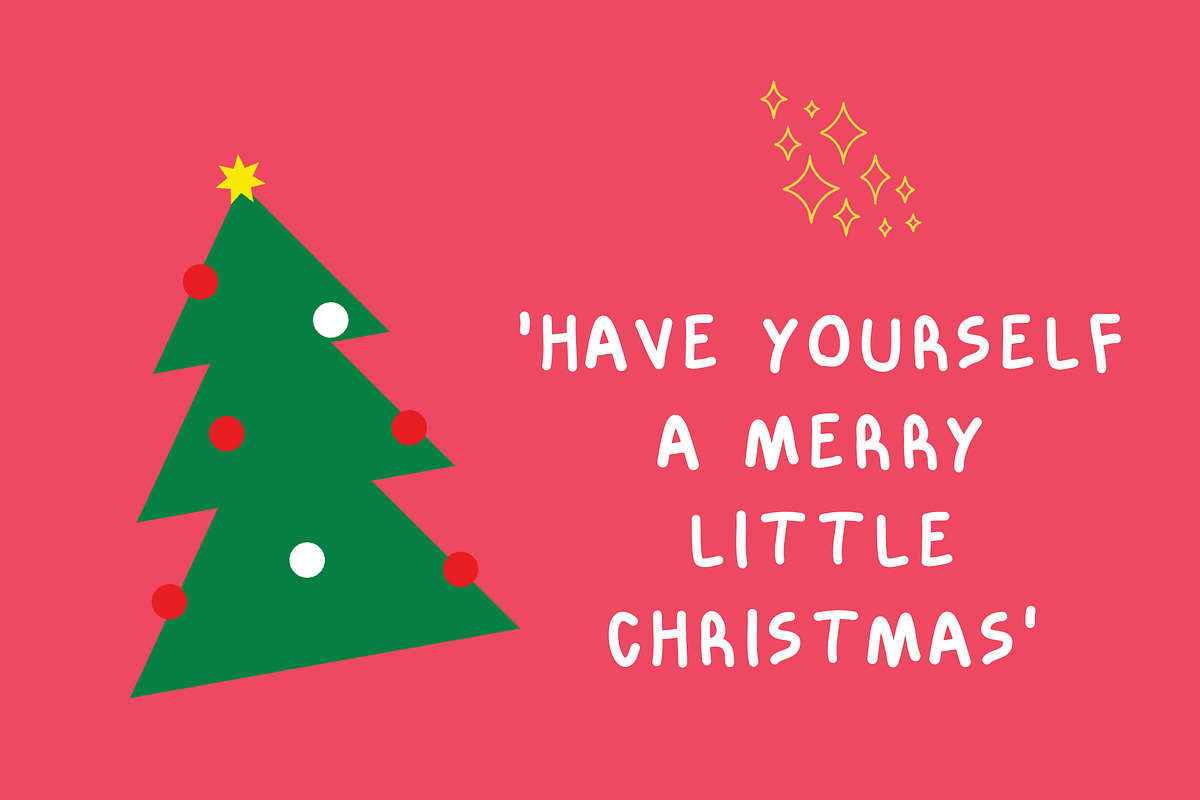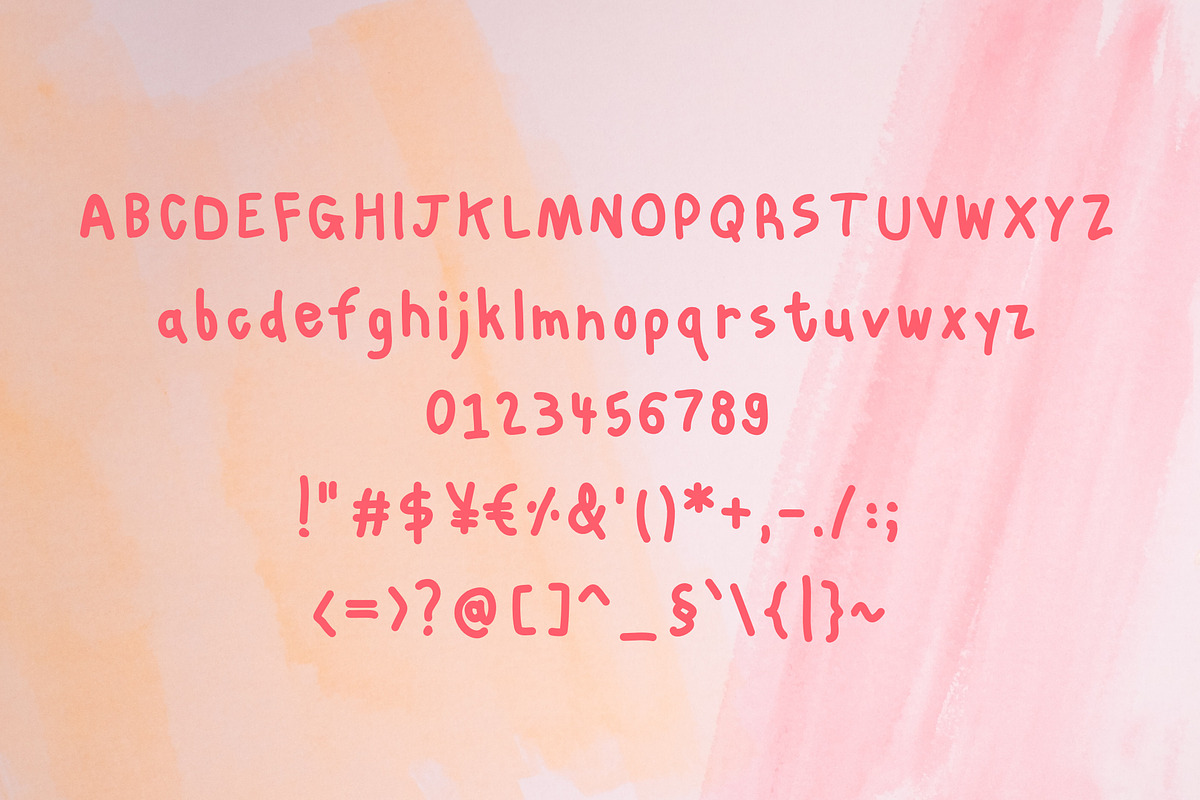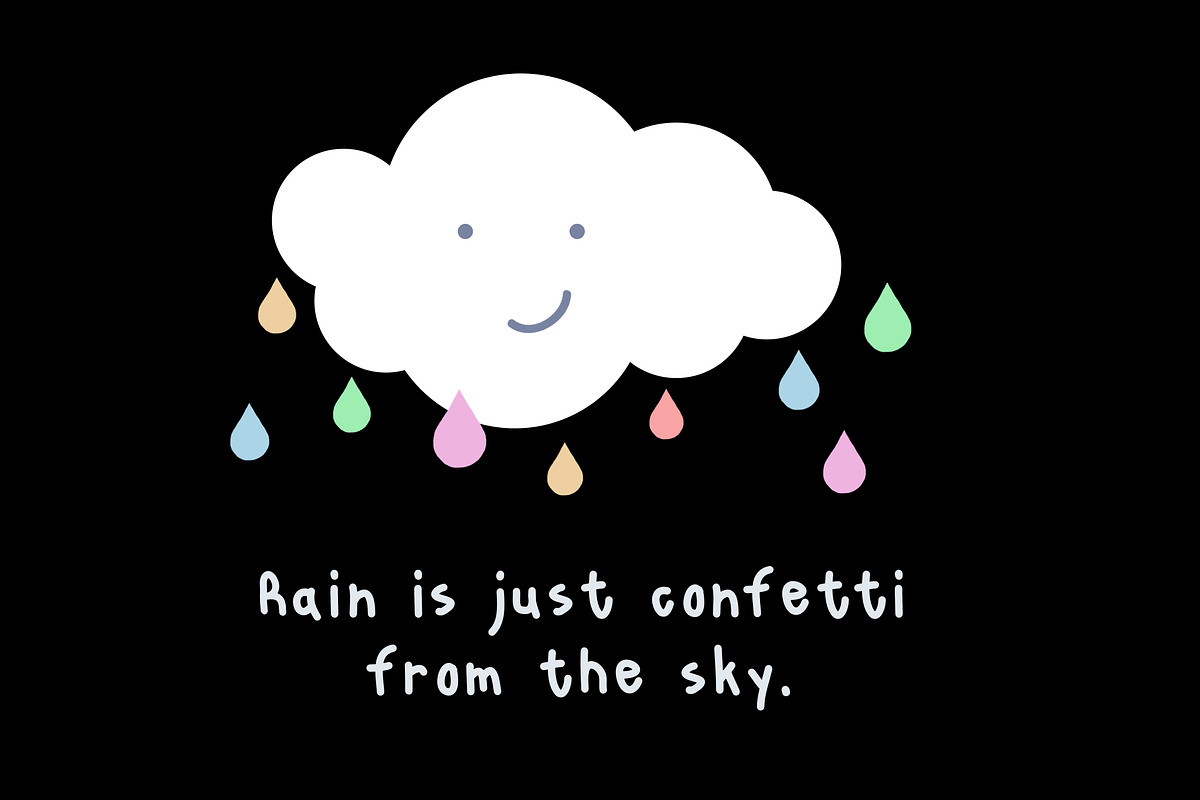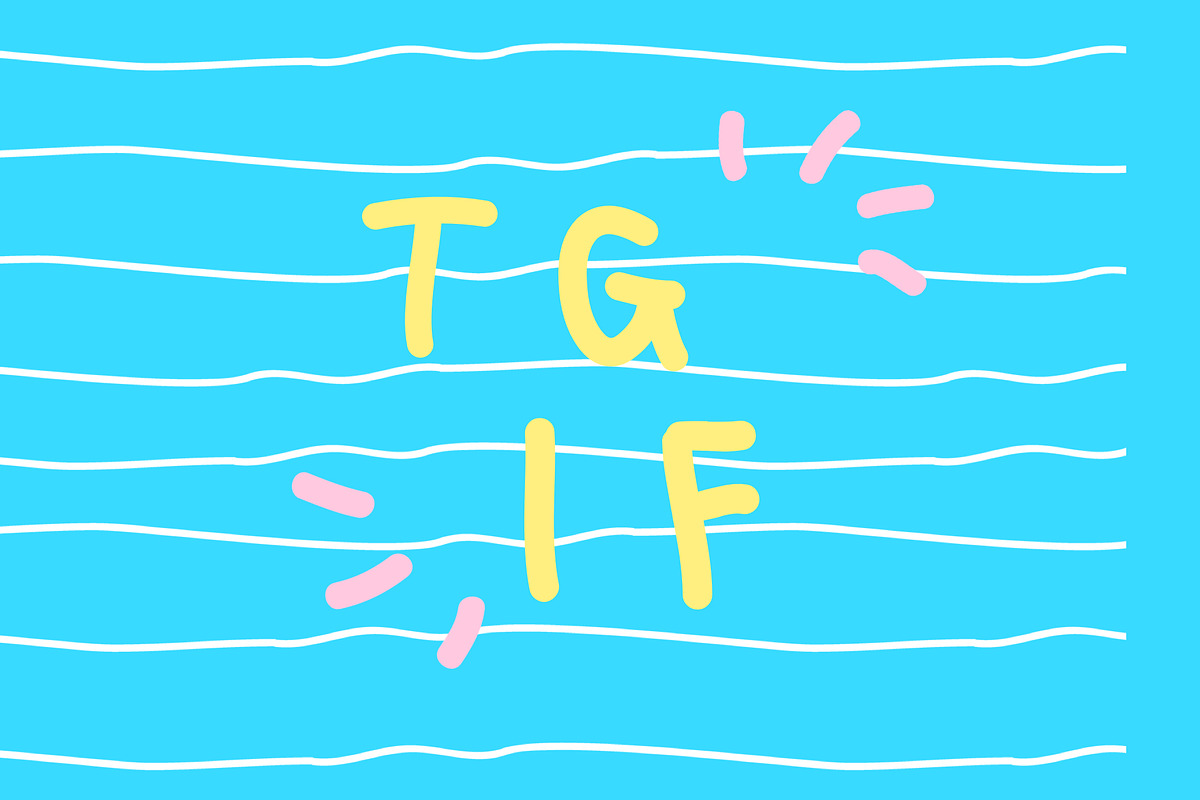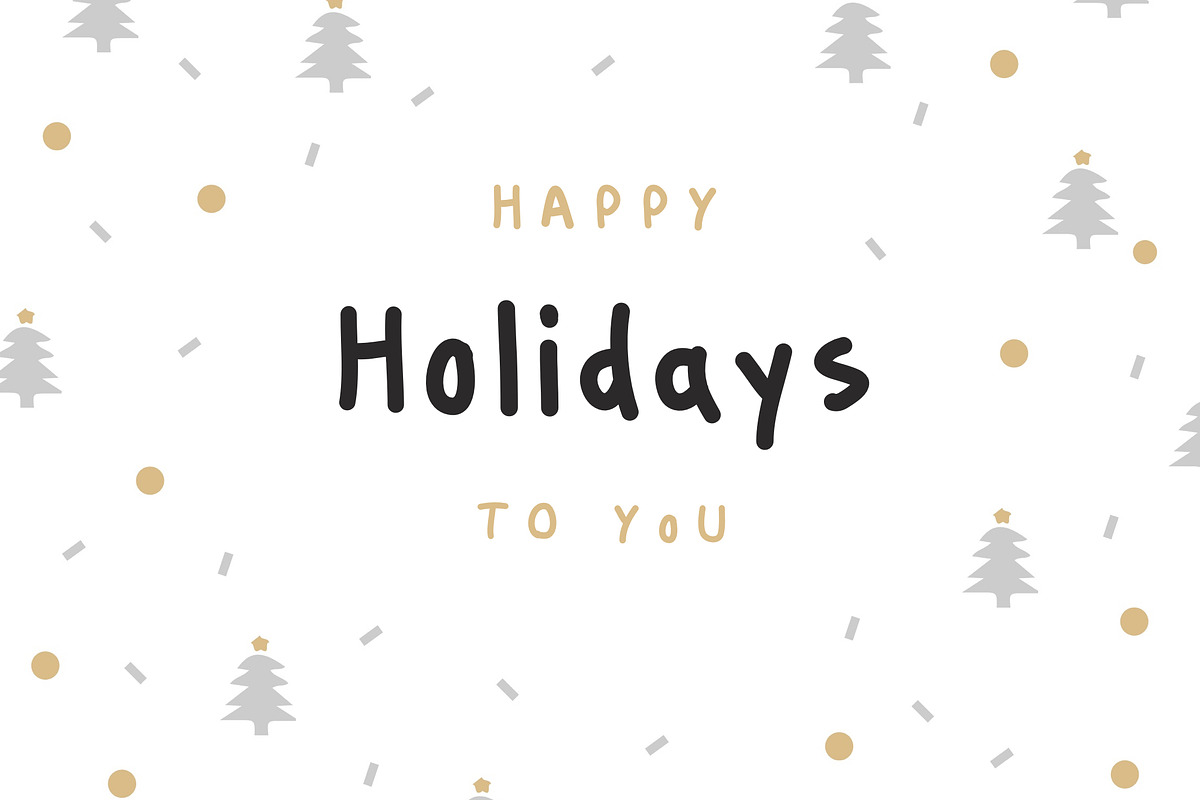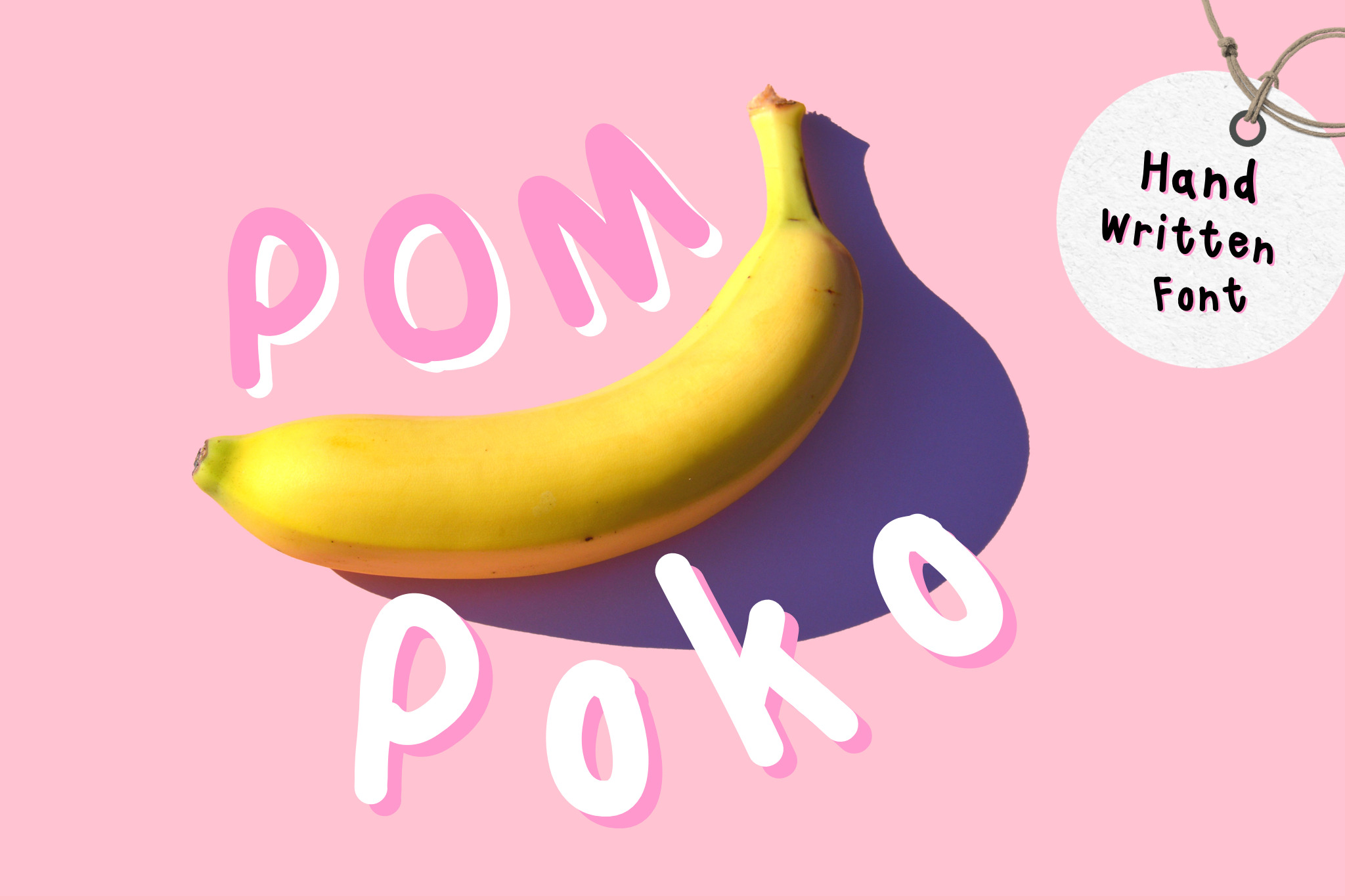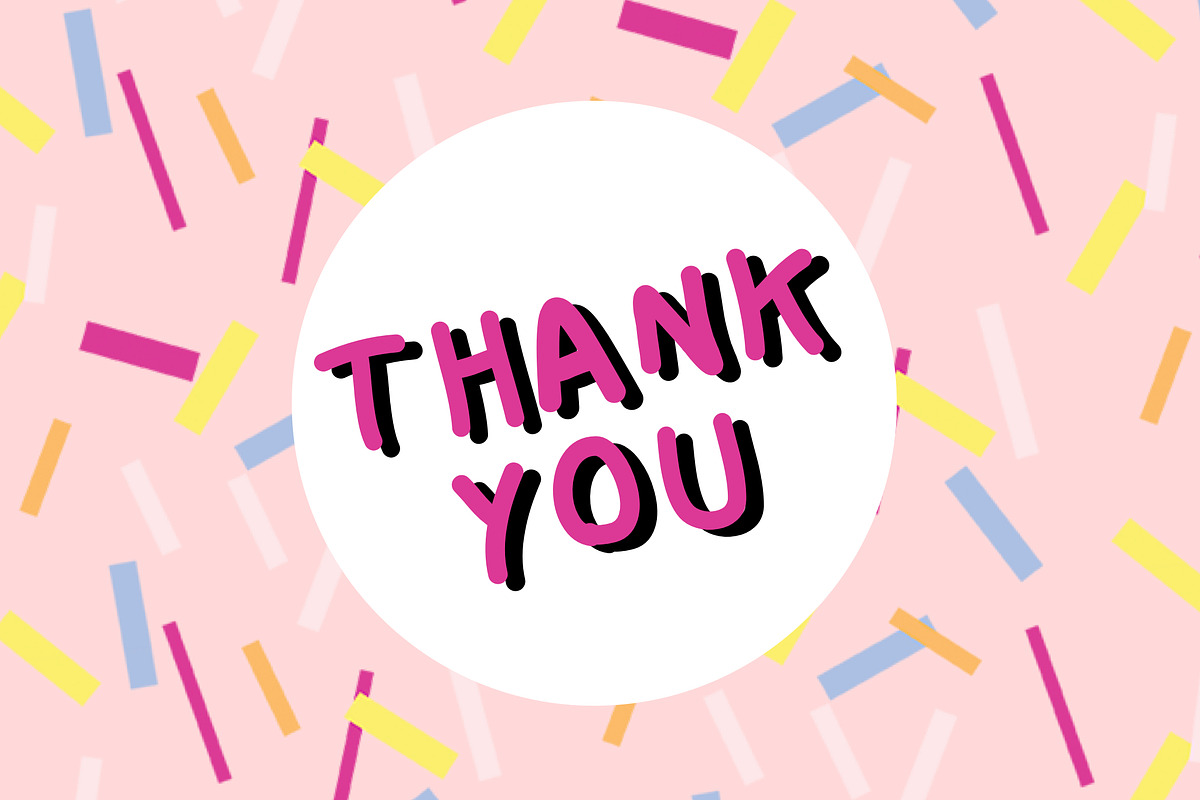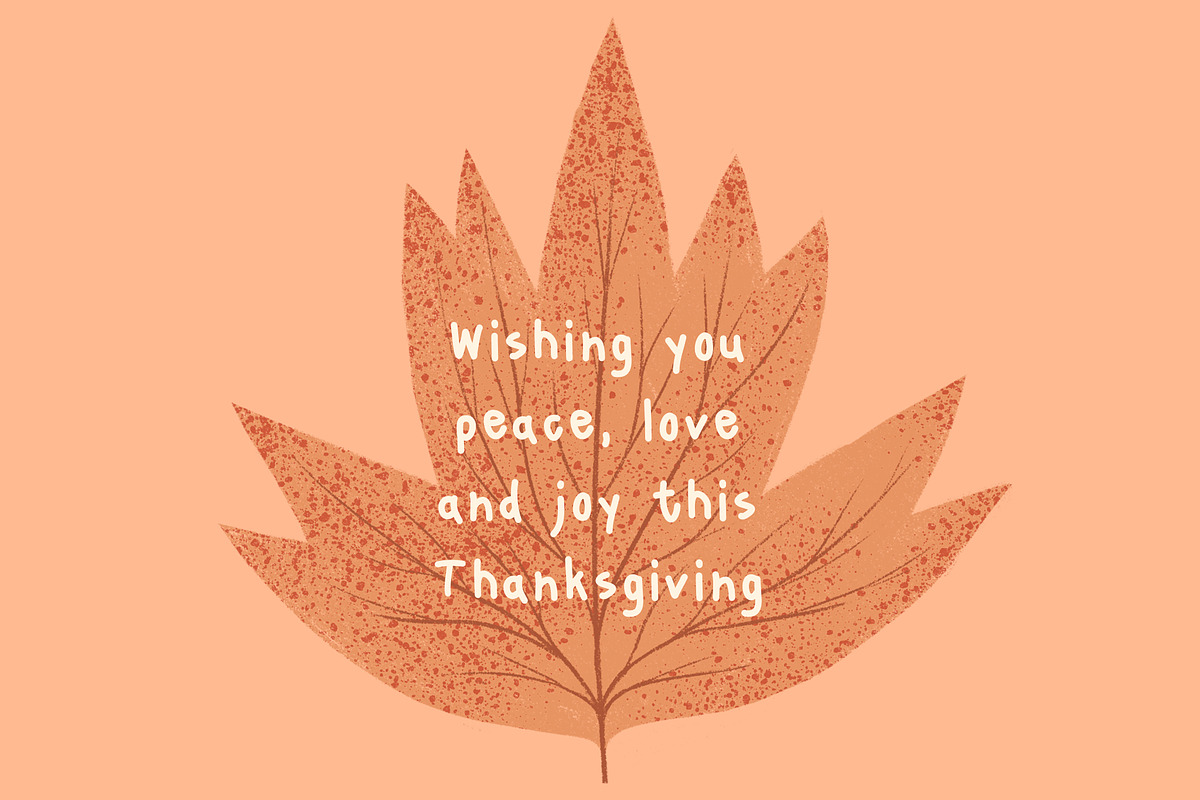
Pom Poko Handwritten Font
Pom Poko Font
Pom Poko is a playful and friendly handwritten font. Perfect for personal use, website, web header , banner, blog, craft projects, postcard, poster, invitations, labels, social media, Template design and many more.